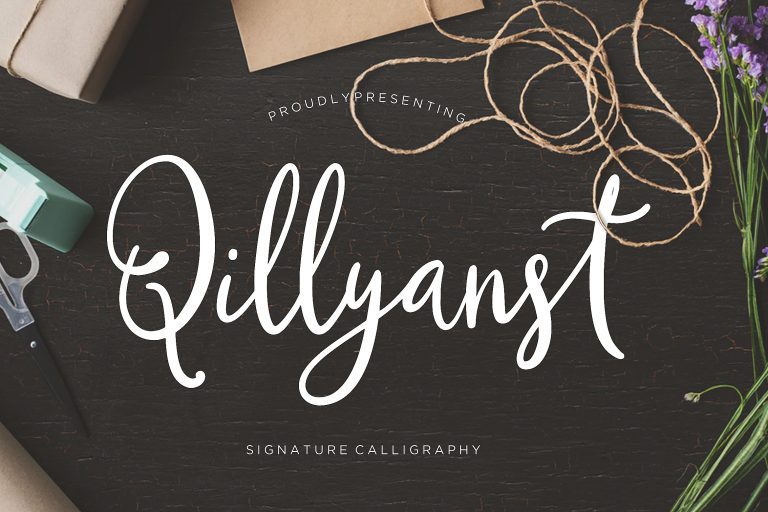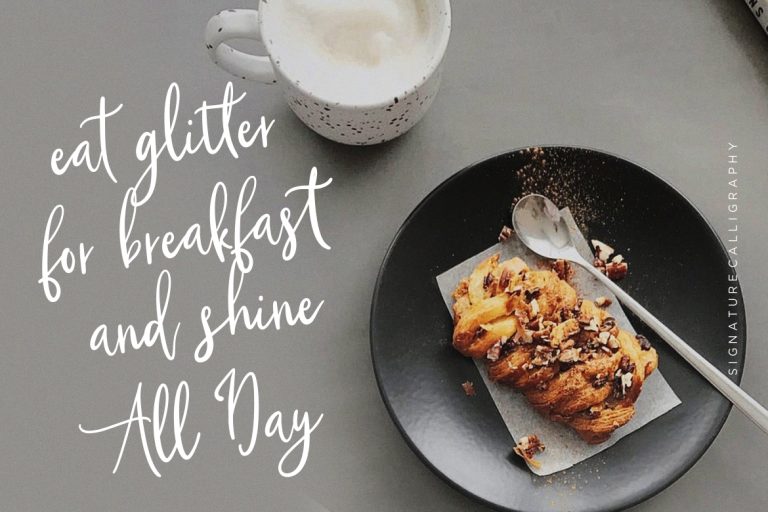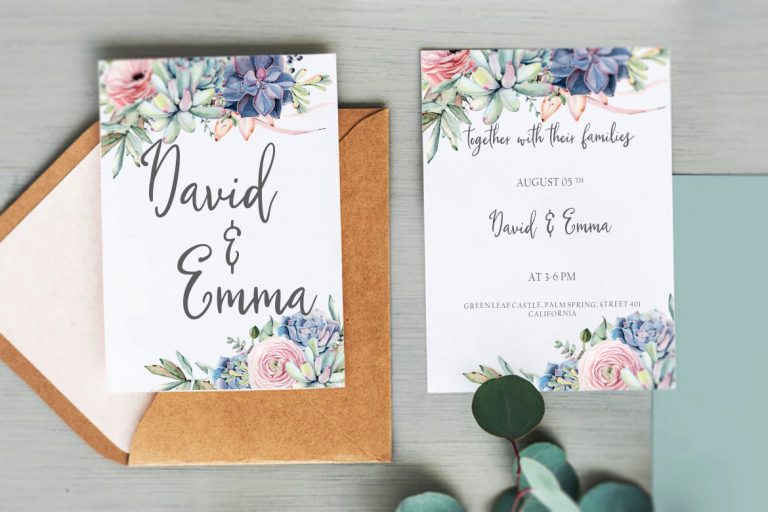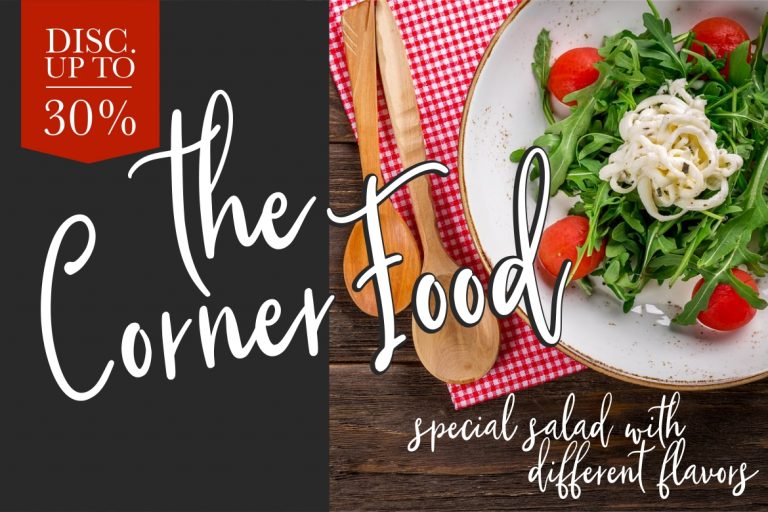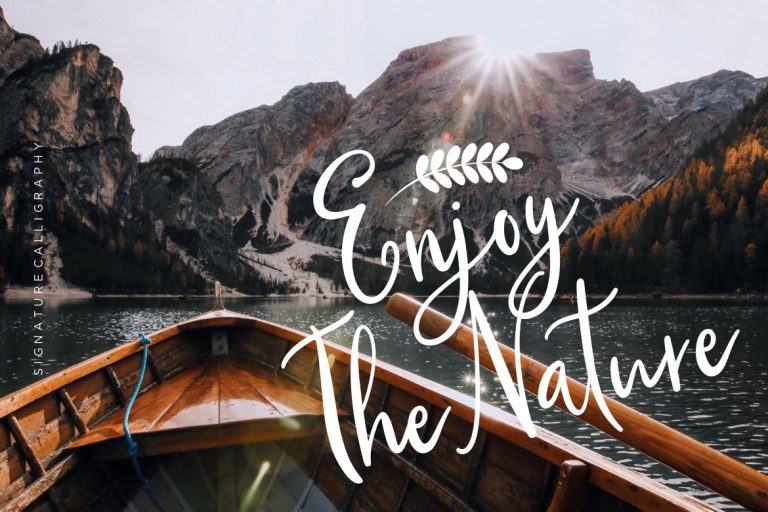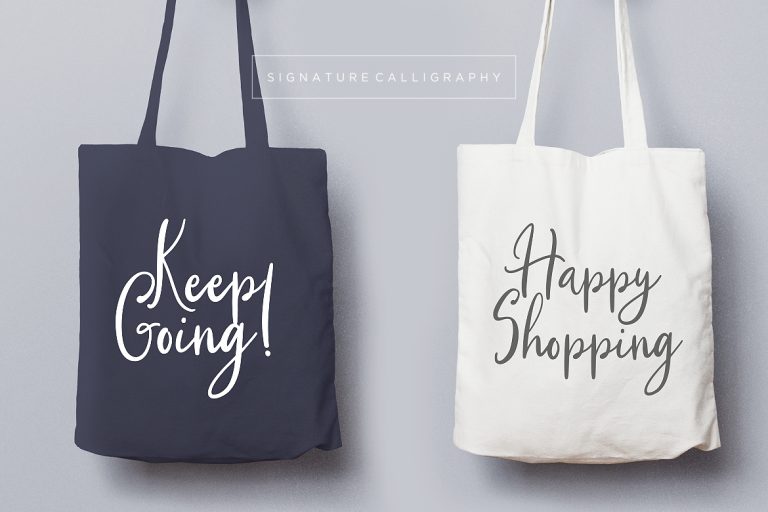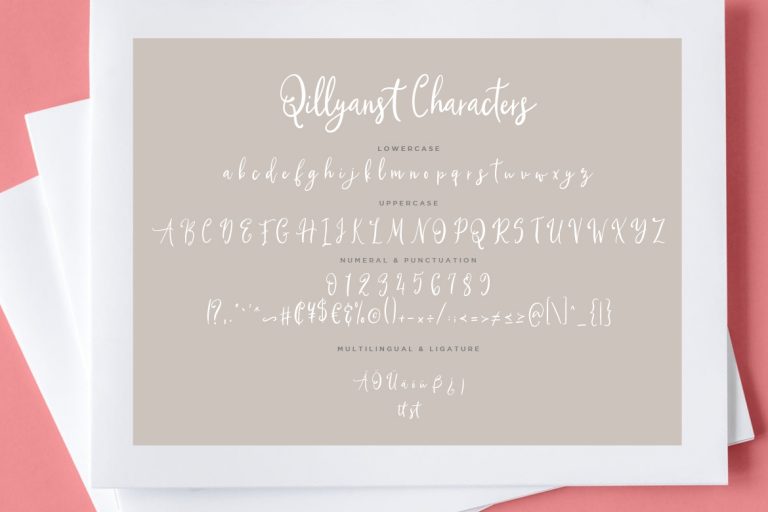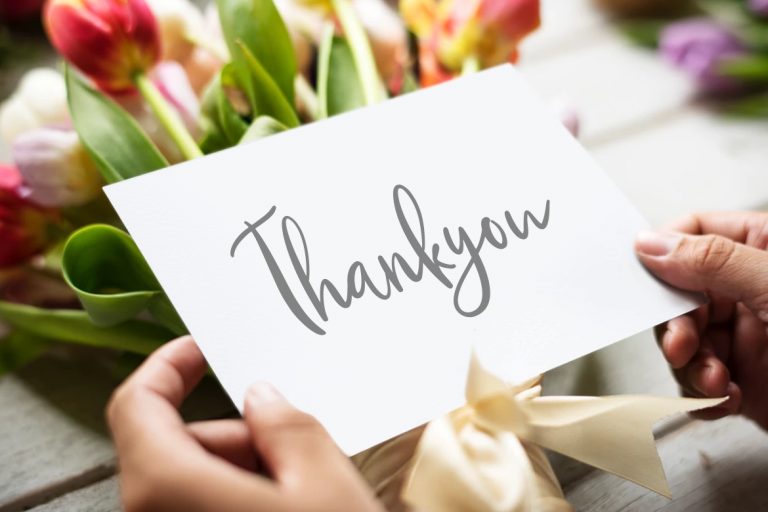
Qillyanst is nice and elegant signature calligraphy font collection with amazing performance indeed.
Qillyanst is perfect for branding projects, logo, wedding designs, social media posts, advertisements, product packaging, product designs, label, photography, watermark, invitation, stationery and any projects that need handwriting taste.
- Standard glyphs
- Ligature
- Fonts include multilingual support for; ä ö ü Ä Ö Ü ß ¿ ¡
Qillyanst Signature Calligraphy